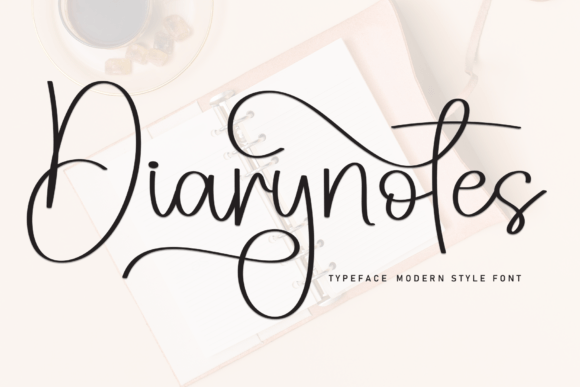
Prepare to be amazed by Diarynotes Font, an awe-inspiring creation by Roronoa zoro.S.P.D that will transform your digital creations into masterpieces. Experience the elegance of handwritten calligraphy seamlessly blended with a modern, refreshing touch. Diarynotes Font is not just a font; it's an artistic journey that will add a touch of sophistication and charm to all your projects.
Immerse yourself in the world of Diarynotes Font, a beautiful script font family that captures the essence of handwritten charm. Its graceful curves and flowing lines will add a personal touch to your designs, whether you're creating logos, invitations, social media graphics, or website headers. With Diarynotes Font, your creativity knows no bounds.
Unleash your imagination and let Diarynotes Font guide you to new heights of design excellence. Its versatility extends to a wide range of applications, from branding and marketing materials to personal projects and social media posts. Whether you're an experienced designer or just starting, Diarynotes Font is your perfect companion, ready to elevate your projects with its timeless beauty.
Don't settle for ordinary fonts. Embrace the extraordinary with Diarynotes Font. Its unique character will make your designs stand out, leaving a lasting impression on your audience. It's the perfect choice for those who appreciate the finer details and seek a font that exudes elegance and sophistication.
Join the growing community of designers and creatives who have discovered the magic of Diarynotes Font. Its versatility and charm have made it a favorite among those who demand the best. Experience the difference and see how Diarynotes Font can transform your creative vision into a reality.